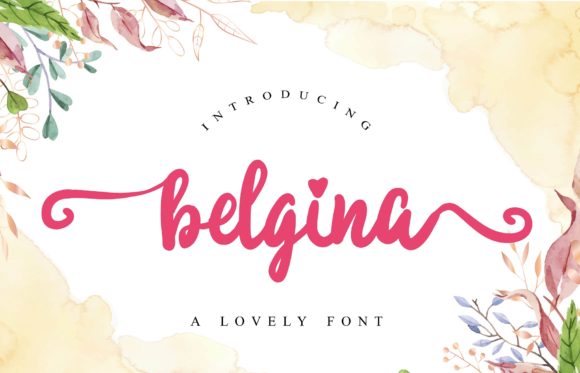
Introducing Belgina Font: The Perfect Handwritten Script for Romantic Designs
Are you a designer or crafter looking for a beautiful, handwritten font to add a touch of elegance and romance to your projects? Look no further than Belgina Font! This lovely, smooth, and sweet script is perfect for creating stunning wedding invitations, cards, and other designs that require a personalized and whimsical feel.
What Makes Belgina Font So Special?
Belgina Font is a dainty and joyful handwritten script that exudes a sense of romance and sophistication. Its smooth and flowing lines make it perfect for creating beautiful, eye-catching designs that will leave a lasting impression. Whether you’re designing wedding invitations, greeting cards, or other paper crafts, Belgina Font is sure to add a touch of magic to your projects.
Characteristics of Belgina Font
So, what makes Belgina Font so unique? Here are some of its key characteristics:
- Lovely and Smooth: Belgina Font features smooth, flowing lines that give it a beautiful, handwritten feel.
- Sweet and Dainty: This font is perfect for creating delicate, whimsical designs that require a touch of elegance.
- Handwritten: Belgina Font is a true handwritten script, making it perfect for creating personalized and unique designs.
- Romantic: With its flowing lines and delicate curves, Belgina Font is the perfect choice for creating romantic designs, such as wedding invitations and love letters.
Uses for Belgina Font
Belgina Font is a versatile script that can be used for a wide range of design projects, including:
- Wedding Invitations: Create stunning wedding invitations that will set the tone for your special day.
- Greeting Cards: Add a touch of elegance and sophistication to your greeting cards, perfect for special occasions like birthdays, anniversaries, and holidays.
- Paper Crafts: Use Belgina Font to create beautiful paper crafts, such as scrapbook pages, journal entries, and other DIY projects.
- Signage: Create eye-catching signs and posters that will grab attention and add a touch of whimsy to your designs.
Tips for Using Belgina Font
Here are some tips for getting the most out of Belgina Font:
- Pair it with Other Fonts: Combine Belgina Font with other fonts to create a unique and eye-catching design.
- Experiment with Colors: Try out different colors and color combinations to add depth and interest to your designs.
- Use it for Headings and Titles: Belgina Font is perfect for creating beautiful headings and titles that will add a touch of elegance to your designs.
- Add Decorative Elements: Consider adding decorative elements, such as flowers or borders, to enhance your designs and make them more visually appealing.
In conclusion, Belgina Font is a beautiful, handwritten script that is perfect for creating romantic and elegant designs. With its smooth and flowing lines, dainty and joyful feel, and versatile uses, it’s a must-have font for designers and crafters alike. Whether you’re creating wedding invitations, greeting cards, or other paper crafts, Belgina Font is sure to add a touch of magic to your projects. So why wait? Download Belgina Font today and start creating stunning designs that will leave a lasting impression!